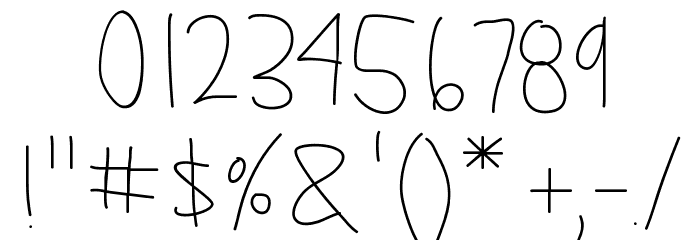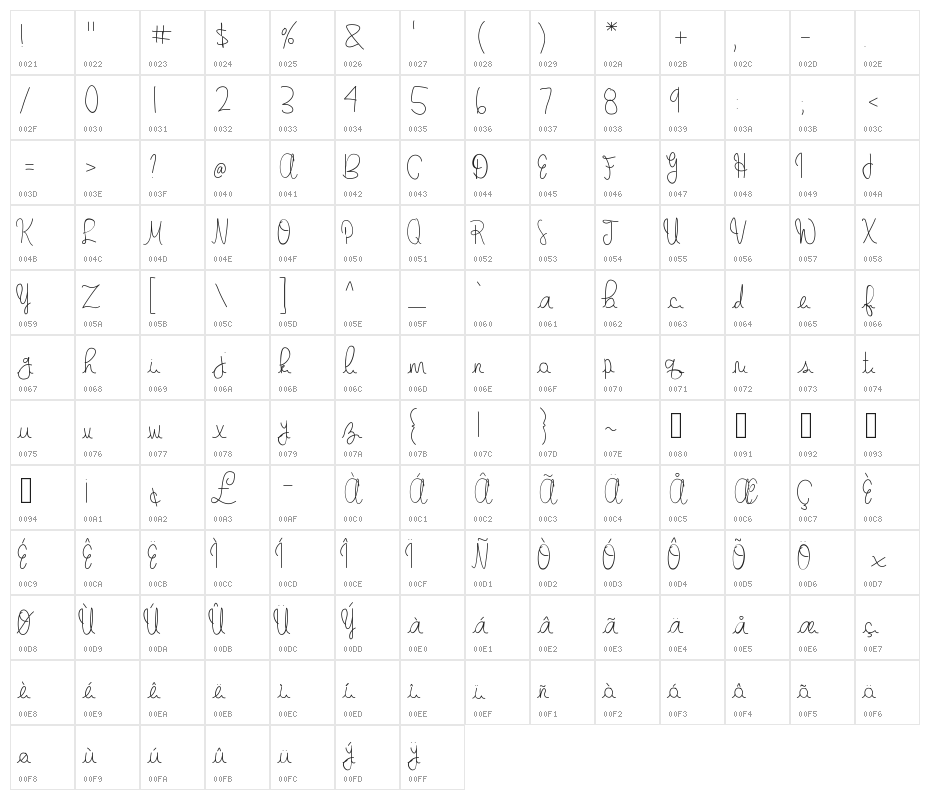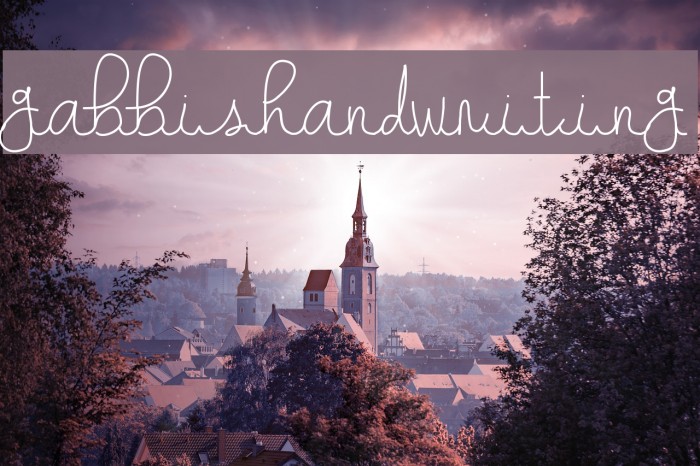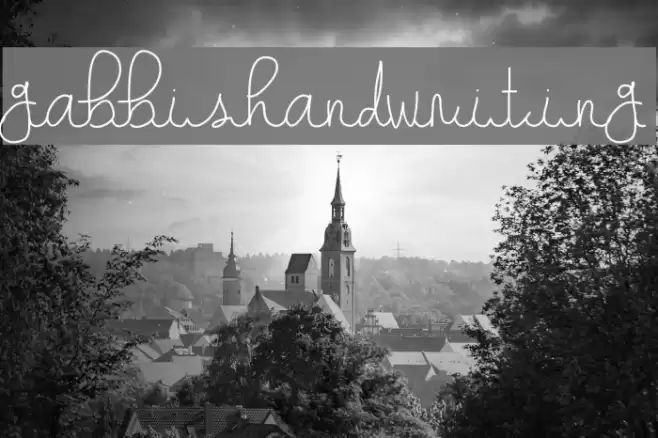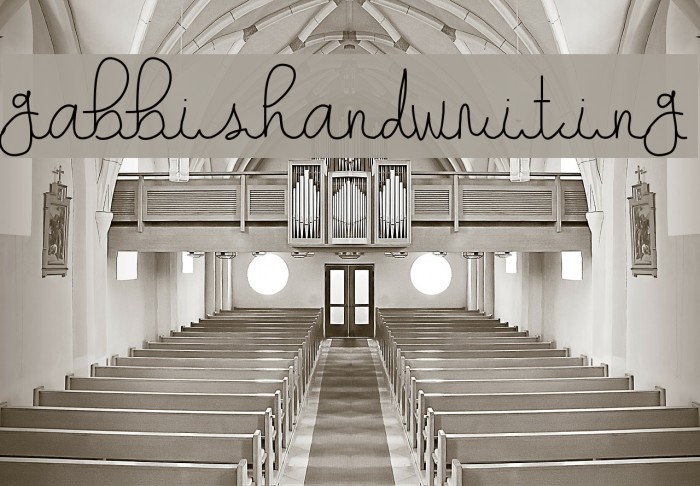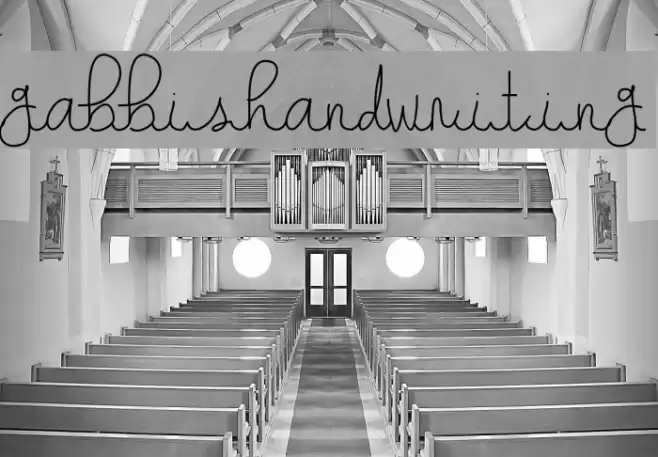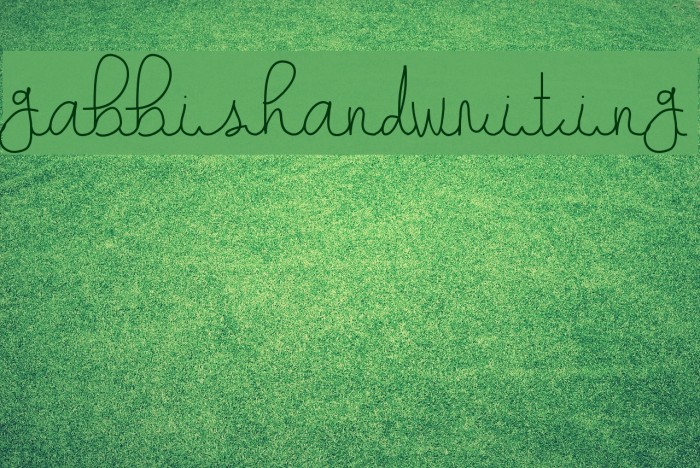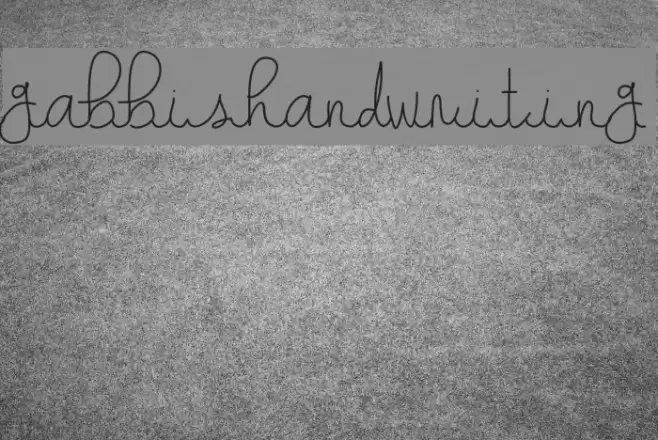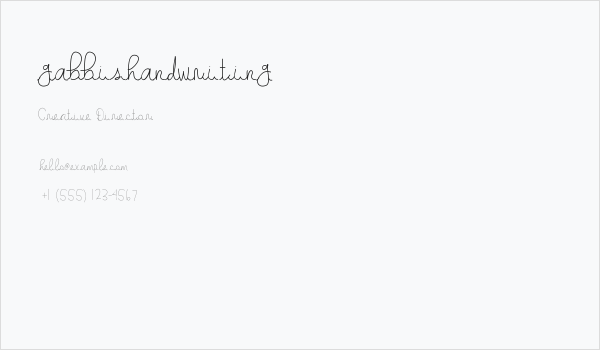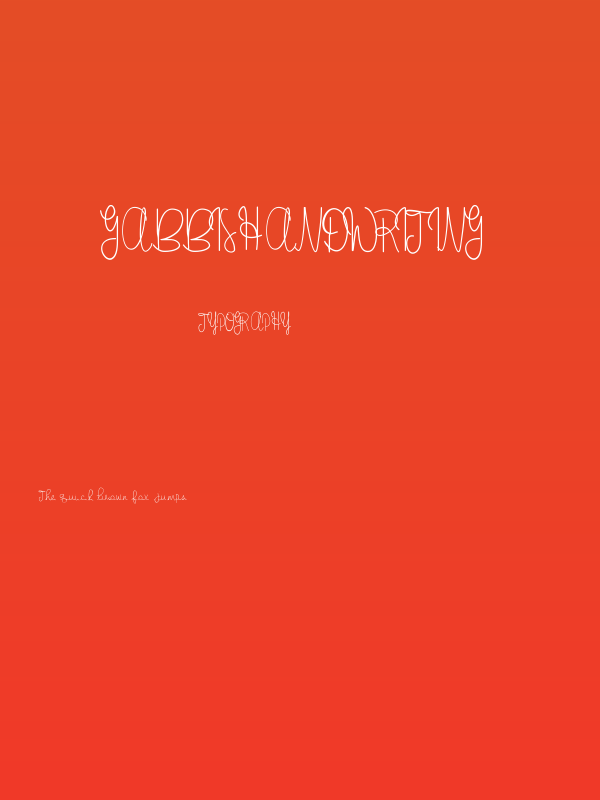
gabbishandwriting Font
gabbishandwriting Description
This font exudes a casual and playful handwritten style, characterized by its fluid and continuous strokes. The letters are connected in a cursive manner, giving it a personal and informal touch. The uppercase letters are tall and slightly narrow, while the lowercase letters maintain a consistent flow, enhancing readability. The numbers and special characters are crafted with the same playful spirit, ensuring a cohesive look across all elements. This font is perfect for projects that require a personal, friendly, and approachable feel.
| Proposed Projects | Ideal for greeting cards, personal notes, invitations, and informal branding projects. |